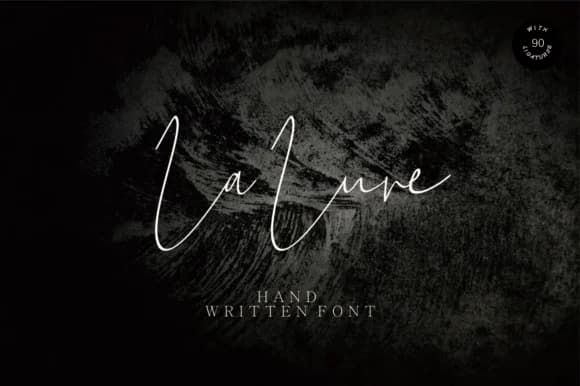
La Lune Font by Fikryal Studio is a flowing handwritten script that balances contemporary design sensibility with timeless elegance. The font captures the organic rhythm of pen strokes while delivering the visual refinement that modern branding demands. Its smooth, consistent letterforms work equally well in display sizes and smaller text applications, making it remarkably versatile for a wide range of creative projects and design contexts.
This typeface truly shines in intimate design applications where personality and authenticity matter most. Consider wedding invitation suites with custom monograms and envelope addressing, Etsy product labels for artisanal and handcrafted goods, boutique skincare packaging that demands visual sophistication, and hand-lettered quote art for inspirational wall dΓ©cor. The fluid, organic nature of La Lune also translates beautifully to personal branding initiatives, social media graphics with character, and custom stationery designs where a touch of handcrafted warmth significantly enhances the overall visual impact.
The script's consistent letterforms and comprehensive character set make it accessible for longer copy passages without sacrificing the handmade aesthetic that makes hand-lettered design so compelling to contemporary audiences. Whether you're designing intimate stationery or creating stand-out packaging that captures attention on crowded shelves, La Lune Font offers the versatility to adapt across formats and applications. Discover the complete typeface on Creative Fabrica.
La Lune Font is a script font that shines as a display or heading face. Pair it with a clean sans-serif or serif font for body text β the contrast creates a clear hierarchy while the two styles stay balanced and easy to read.
La Lune Font